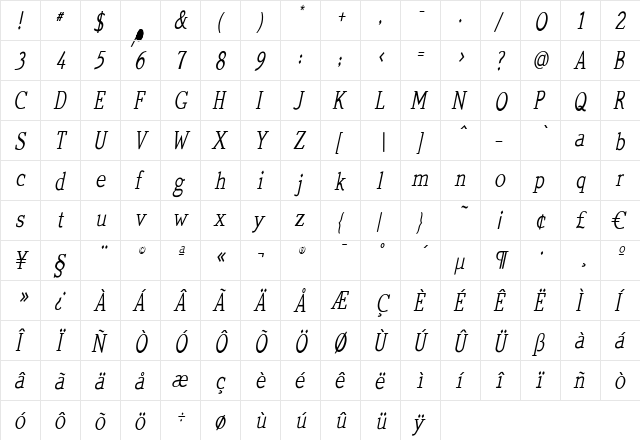
QuickType Condensed Italic Font Preview
Design Context for QuickType Condensed Typeface
QuickType Condensed offers clean, dependable letterforms without strong stylistic allegiance, making it a practical choice for designers who need flexibility. The dynamic lean of this cut emphasises speed and emphasis in any layout. The condensed width makes it efficient for tight spaces without sacrificing legibility.
Pro Tip: Try QuickType Condensed for annotation and caption copy alongside an upright companion — the contrast in angle creates a dynamic but ordered typographic system.